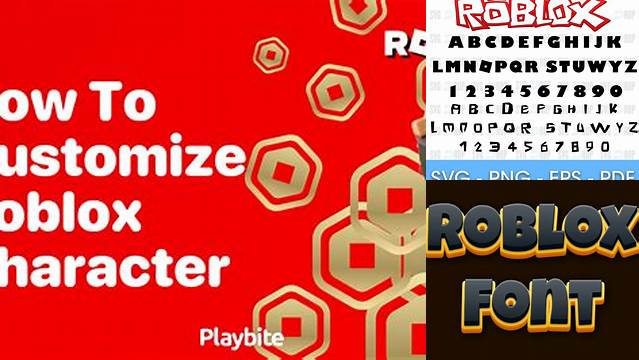
Change Roblox Font: Ultimate Guide To Custom Fonts
Hey guys! Ever felt like the default Roblox font is cramping your style? Want to inject a bit more of your personality into your game or profile? Well, you're in luck! Changing the font in Roblox is totally doable, and I'm here to walk you through everything you need to know. In this in-depth guide, we'll explore the ins and outs of how to change fonts in Roblox, covering everything from the official methods (which, spoiler alert, are limited) to the more adventurous custom font replacements. We'll delve into why you might want to change your font, the technical aspects involved, and even some potential pitfalls to watch out for. So, buckle up, font fanatics, and let's get started on this typographical journey!
Why Change Your Roblox Font?
Let's start with the big question: why even bother changing the font in Roblox? You might be thinking, "It's just a font, right?" But trust me, the right font can make a world of difference! Think about it – fonts have personalities. Some are playful and bubbly, others are sleek and modern, and still others evoke a sense of classic elegance. The font you use can dramatically impact the overall feel and aesthetic of your Roblox experience. If you’re aiming for a specific theme in your game, selecting a suitable font can make your game truly stand out.
For instance, imagine you're creating a spooky horror game. Would you want to use a cute, rounded font? Probably not! A font with sharp edges, a dark vibe, or even a handwritten, unsettling feel would be much more fitting. Or, perhaps you're building a futuristic sci-fi world. A sleek, sans-serif font might be the perfect choice to convey that technological vibe. The right Roblox font customization can enhance user experience, adding a layer of polish and professionalism to your creation. It's not just about aesthetics, though; consider accessibility. A clear, readable font can make your game more enjoyable for players with visual impairments, making your game more inclusive and user-friendly. So, choosing the right font isn't just a cosmetic decision; it's a design choice that can have a significant impact. It can make your game more engaging, immersive, and accessible to a wider audience. Ultimately, the goal is to create an experience that resonates with your players, and the customized Roblox font is a crucial element in that process.
Official Font Options in Roblox
Alright, let's talk about the official ways Roblox lets you tweak your fonts. Now, I'm going to be straight with you guys – the options are a bit limited. Roblox, by default, doesn't offer a huge array of font choices within the game settings itself. You won't find a dropdown menu brimming with hundreds of fonts like you might in a word processor or design program. However, there are some built-in options you can leverage, especially within your games using Roblox Studio. Understanding these Roblox in-game font styles is the first step to customizing your game's look and feel.
Within Roblox Studio, when you're designing your game's user interface (UI), you'll encounter TextLabel and TextBox objects. These are the primary elements that display text in your game, and they come with a few font properties you can adjust. The most important property is, unsurprisingly, the Font
property. Clicking on this property will reveal a limited selection of pre-installed fonts. These fonts are Roblox's official font offerings, and while the selection might not be massive, they cover a range of styles, from classic sans-serif fonts to more playful and stylized options. You'll find fonts suitable for various game genres and aesthetics, so it's worth exploring what's available. Experimenting with different font sizes, font weights (boldness), and font colors alongside these built-in fonts can still yield impressive results. For example, combining a bold font with a vibrant color can make important UI elements stand out, while a lighter font with a muted color can create a more subtle and elegant feel. So, while the official font options might not be as extensive as some users desire, they provide a solid foundation for creating visually appealing and readable text within your Roblox games. Don't underestimate the power of these Roblox's official font selections, and remember that creative use of size, weight, and color can significantly enhance their impact.
Diving Deeper: Custom Fonts (The Unofficial Route)
Okay, so the official font options are a bit…restricted, right? Don't worry, though! This is where things get interesting. If you're feeling adventurous and want to really personalize your Roblox experience, you can venture into the world of custom fonts. Now, I need to preface this by saying that using custom fonts in Roblox isn't officially supported. This means it involves a bit of a workaround, and there's a slight chance it could break with future Roblox updates. However, many players and developers have successfully used this method to achieve unique and stunning visual styles in their games. So, let's explore this unofficial Roblox custom font integration process.
The basic idea is to replace one of the existing Roblox fonts with a font of your choice. This involves digging into the Roblox installation files (more on that in a moment) and swapping out the font files. It's a bit like performing surgery on your Roblox installation, so it's crucial to proceed with caution and follow instructions carefully. Before you even think about touching any files, back up your Roblox installation. This is essential. If something goes wrong, you'll want a way to revert to the original state. Think of it as a safety net. Once you've got your backup sorted, you'll need to locate the Roblox font directory. This is usually found within the Roblox installation folder, typically under Fonts
. Inside this folder, you'll see a collection of .ttf
(TrueType Font) files, which are the font files Roblox uses. Now comes the crucial part: choosing your custom font. There are countless font websites online where you can download fonts for free or purchase them. When selecting a font, make sure it's in .ttf
format, as this is the format Roblox uses. It's also wise to choose a font that's legible and fits the overall aesthetic you're aiming for. Once you've downloaded your chosen font, you'll need to rename it to match the name of one of the existing Roblox fonts you want to replace. This is where things can get a little tricky, so pay close attention to the filenames. After renaming, you'll carefully replace the original Roblox font file with your custom font file. Remember, precision is key here. A single wrong move could cause issues. Once the replacement is complete, restart Roblox, and with a bit of luck, you should see your custom font in action! However, there's a significant drawback to this approach: you won't be the only one seeing your new font. Custom fonts implemented this way are visible only on your client, meaning other players will see the default fonts, which can be particularly limiting for game developers aiming for a consistent experience for all players. Despite this, alternative font replacement methods are something to keep in mind, especially for personal customization.
Potential Pitfalls and Considerations
So, you're thinking about diving into the world of custom Roblox fonts? That's awesome! But before you go full steam ahead, let's chat about some potential pitfalls and things you should consider. This isn't just a walk in the park; there are a few bumps in the road you might encounter. The first, and perhaps most significant, pitfall is the risk of breaking your Roblox installation. As I mentioned earlier, messing with the game's files can be a bit risky, especially if you're not super tech-savvy. A wrong move, a misplaced file, or even a simple typo can lead to Roblox not working correctly. That's why backing up your installation is absolutely crucial. Think of it as insurance for your Roblox experience. Another important consideration is font licensing. Not all fonts are created equal, and not all fonts are free to use. Some fonts have licenses that restrict their use, especially for commercial purposes. If you're a game developer looking to use a custom font in your game, make sure you have the necessary permissions to do so. Using a font without a proper license could lead to legal trouble down the road, and nobody wants that! Furthermore, font legibility is paramount. A fancy, stylized font might look cool, but if it's difficult to read, it's not going to be very useful in a game. Remember, the primary purpose of text is to communicate information. If players can't easily read the text in your game, they're going to have a frustrating experience. Choose fonts that are clear, easy to read, and appropriate for the context in which they're used. Also, keep in mind the impact on performance. While most fonts are lightweight, using a large number of custom fonts or fonts with complex designs can potentially impact your game's performance, especially on lower-end devices. Test your game thoroughly with your chosen fonts to ensure it runs smoothly. Finally, remember that custom font modifications are client-side only. This means that only you will see the custom font. Other players will still see the default Roblox fonts. This can be a major limitation for game developers, as it prevents you from creating a consistent visual experience for all players. Despite these pitfalls, experimenting with custom fonts can be a fun and rewarding way to personalize your Roblox experience. Just be sure to proceed with caution, do your research, and always back up your files.
Conclusion: Express Yourself Through Fonts
So, there you have it, guys! A comprehensive guide on how to change fonts in Roblox. We've covered everything from the limited official options to the more adventurous custom font replacements. We've explored why you might want to change your font, the technical aspects involved, and the potential pitfalls to watch out for. Ultimately, font customization in Roblox is about expressing yourself and creating a unique experience. Whether you're a player looking to personalize your interface or a developer aiming to craft a visually stunning game, the right font can make all the difference. While the official font options in Roblox might be somewhat restricted, the possibility of using custom fonts opens up a world of creative possibilities. However, it's crucial to proceed with caution and be aware of the risks involved. Back up your files, choose your fonts wisely, and always prioritize legibility and performance. Remember, effective font choices enhance user experience, contributing significantly to the overall appeal of your game. While the client-side nature of custom fonts presents a challenge for developers seeking consistent visual experiences, personal customization remains a viable option. Embrace the power of typography, experiment with different styles, and discover how the right font can transform your Roblox experience. So go ahead, explore the world of fonts, and let your creativity shine! Have fun experimenting and creating something truly unique! Remember to always back up your files and choose fonts that are both visually appealing and easy to read. Now go forth and make your Roblox experience your own!